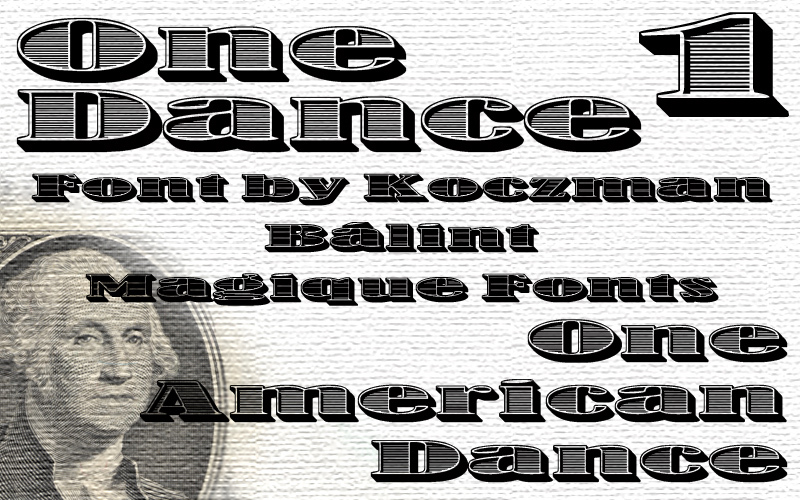
One Dance Bold by Magique Fonts is a free Western display font with broad slab serifs and a deeply dimensional outline. Fine horizontal stripes fill the letter faces, and hard offset shadows give the capitals the look of carved saloon signage.
A frontier-themed poster is its strongest setting. The engraved surface treatment also suits country music packaging, rodeo merchandise, and themed event graphics, where the lettering can function like a decorative sign. Its clearest audience is designers working with Americana, cowboy entertainment, and theatrical Old West imagery.
One Dance